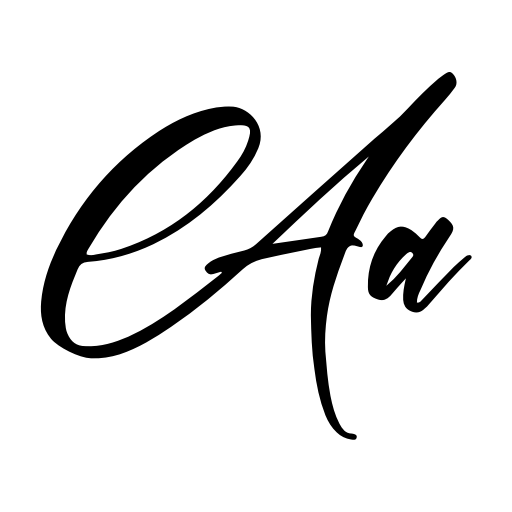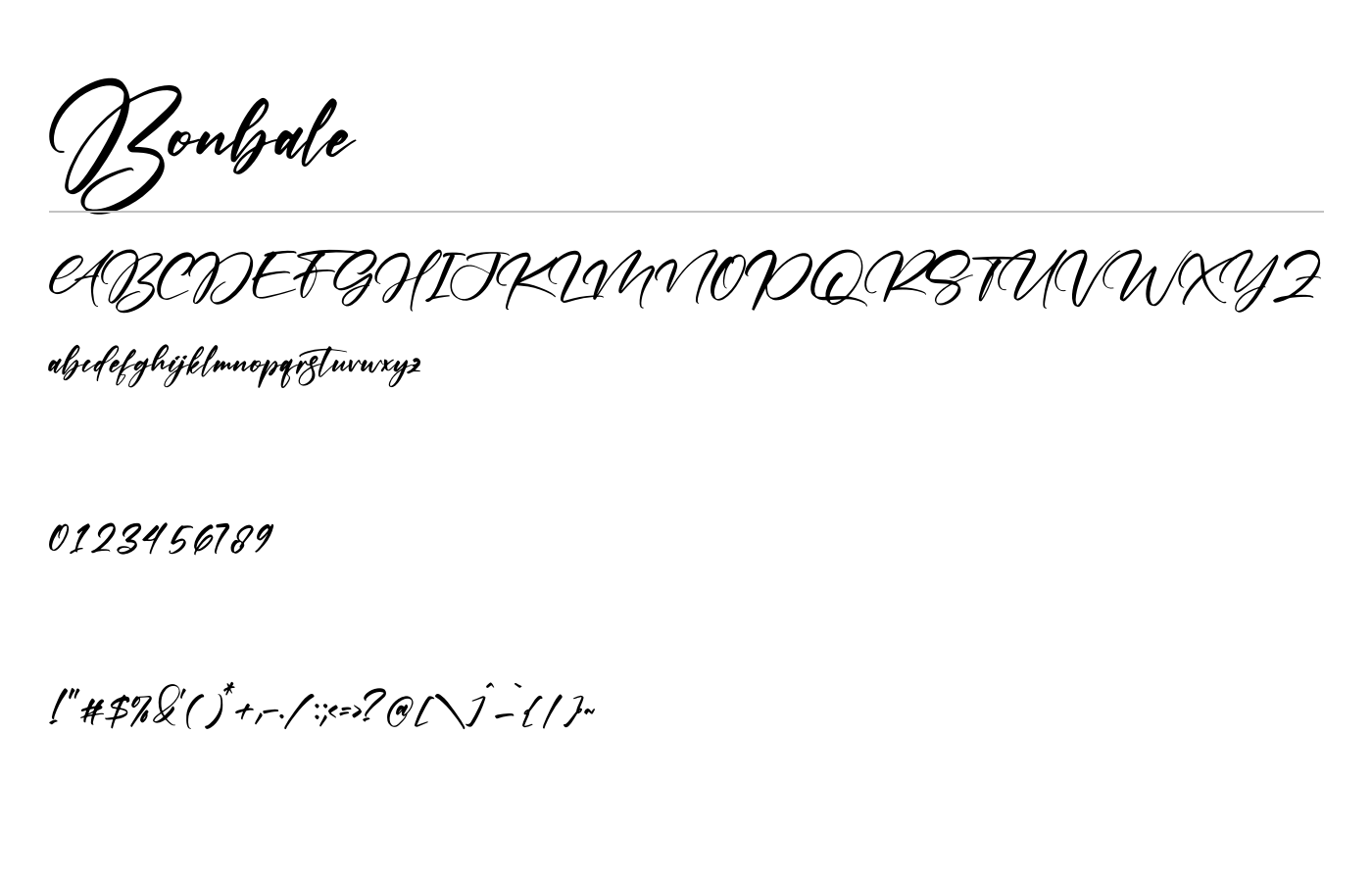
Bonbale is a stylish script font characterized by its fluid, elegant strokes and a modern calligraphic feel. Its smooth, slightly varied line weights and cursive letterforms make it perfect for adding a personal, sophisticated touch to invitations, branding, and headlines where a graceful and artistic appearance is desired. This font works well in contexts that call for a blend of elegance and expressive charm.
Bonbale Font
About Bonbale Font